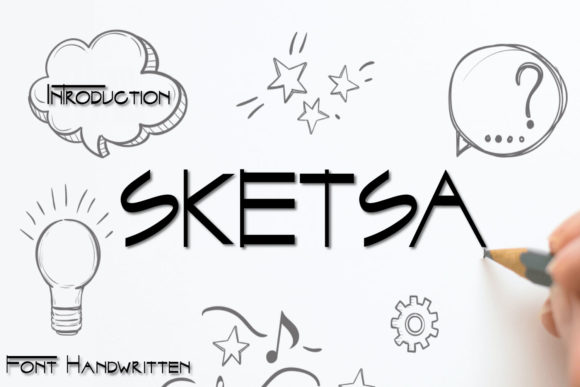
Introducing Sketsa Font - A Typographic Masterpiece for Expressive Designs
In a world of ordinary fonts, Sketsa emerges as a breath of fresh air, a font that dances off the page with its untamed spirit and playful charm. Its meticulously crafted characters exude a carefree attitude, inviting you to infuse your designs with a touch of whimsy and individuality. Whether you're a seasoned designer or just starting out, Sketsa is your perfect companion, ready to transform your creative visions into stunning realities.
Sketsa's versatility knows no bounds. It effortlessly lends its charm to logos, invitations, and wedding designs, adding a touch of elegance and playfulness to these special occasions. Unleash your creativity on social media posts, captivating your audience with Sketsa's captivating presence. From T-shirt designs that speak volumes to branding projects that demand attention, Sketsa is your ultimate font choice, ready to elevate your designs to new heights.
Picture this: A T-shirt adorned with Sketsa's graceful strokes, capturing the essence of your brand with a touch of artistic flair. Your social media posts come alive with Sketsa's playful dance, engaging your audience and leaving a lasting impression. Logos designed with Sketsa stand out from the crowd, exuding a unique personality that sets your brand apart. Invitations and wedding designs crafted with Sketsa radiate elegance, adding a touch of magic to life's most cherished moments.
With Sketsa, you have the power to evoke emotions and create designs that resonate with your audience. Its carefully drawn curves and lively strokes invite viewers to immerse themselves in your creations, connecting with your message on a deeper level. From playful and whimsical to sophisticated and elegant, Sketsa adapts seamlessly to your design vision, becoming an integral part of your storytelling.
Embark on a creative journey with Sketsa, a font that sparks imagination and ignites creativity. Let your designs blossom with Sketsa's undeniable charm, captivating your audience and leaving them in awe. Experience the transformative power of Sketsa today and unlock a world of endless design possibilities.